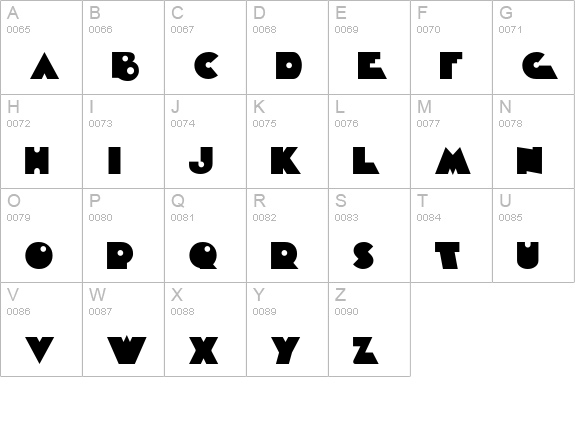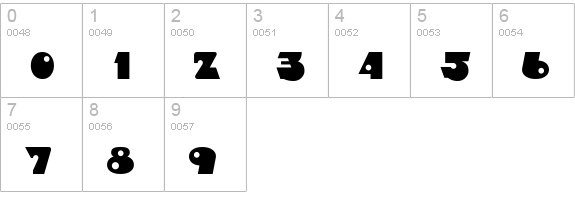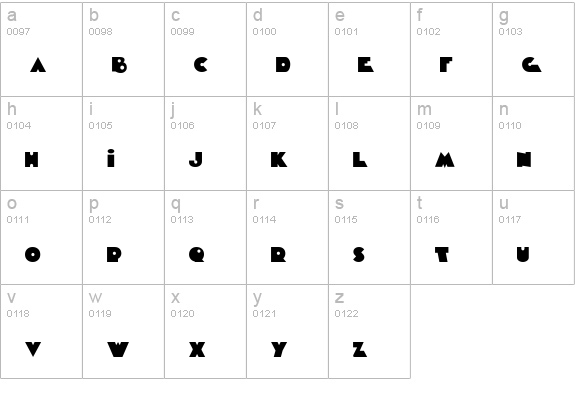
Timepiece Font Details
Timepiece font is a stunning and versatile typeface that effortlessly captures the essence of elegance and sophistication. With its timeless appeal, this font is a perfect choice for any design project that requires a touch of class. The clean lines and balanced letterforms of Timepiece font create a sense of harmony and balance, making it suitable for both digital and print applications. Its unique and distinctive characters make it stand out from the crowd, ensuring that your designs will leave a lasting impression on any audience. One of the best things about Timepiece font is that it is free. Yes, you heard right! This gorgeous font can be freely downloaded at FontsMarket.com, allowing you to add a touch of luxury to your designs without breaking the bank. Its availability as a free download makes it a valuable asset for designers, students, and anyone who appreciates high-quality typography. Whether you are working on a logo, a website, a poster, or any other graphic design project, Timepiece font will elevate your work to new heights. Its versatility and timeless appeal make it suitable for a wide range of design styles, from modern and minimalistic to vintage and classic. So, why wait? Download Timepiece font for free at FontsMarket.com and start creating stunning designs that will make a lasting impression. Embrace the elegance and sophistication that this font brings to your projects, and let your creativity shine. With Timepiece font, the possibilities are endless.